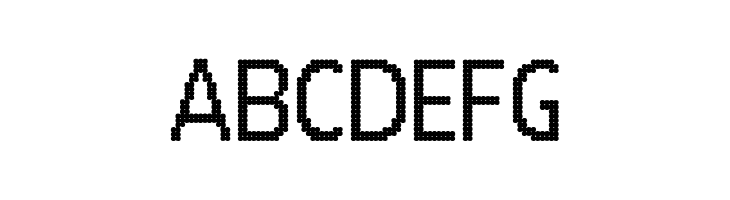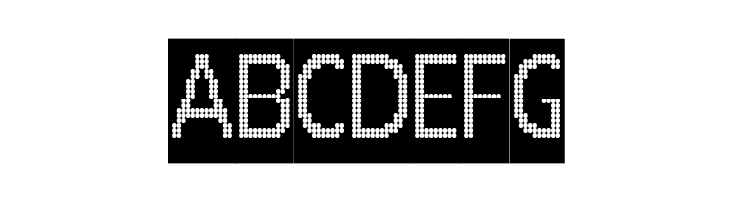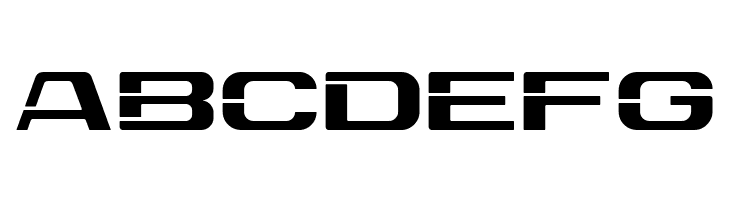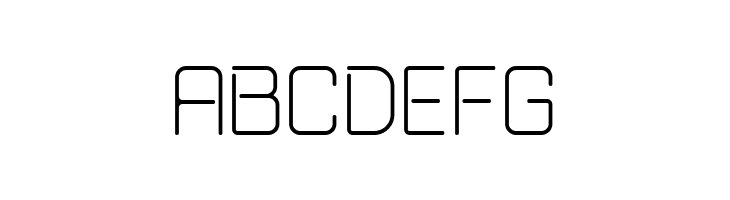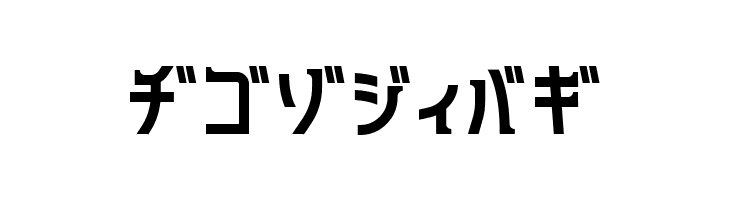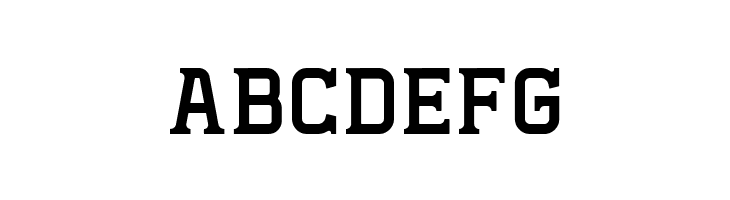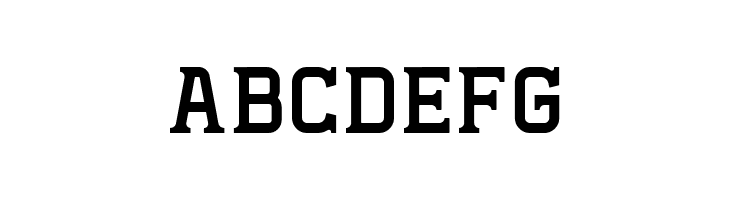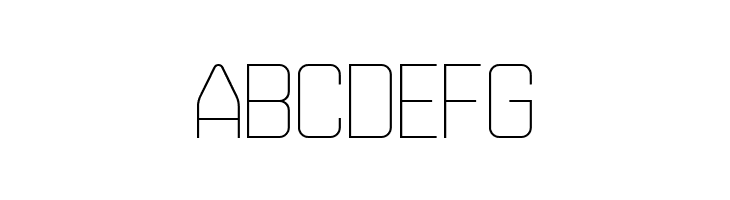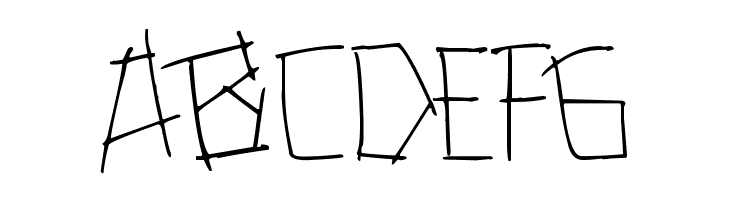
• 235MKSD UltraLightAl
A modern, ultra-light geometric font with a sleek and minimalistic design.
• 239SchabloneAl
A bold, futuristic font with geometric shapes and strong presence.
• 24 boughs Regular
A hand-drawn, twig-like font with an organic, rustic style.
• 24 LED
• 24 LED Bright
• 24 LED Modul
• 240mksdAlA
A bold slab serif font with a strong, authoritative appearance.
• 240mksdAlB
A bold slab serif font with strong, block-like serifs and a robust design.
• 240mksdKt
Bold, geometric sans-serif Japanese font with strong, clean lines.
• 243Ground AL
A modern, geometric font with clean lines and a minimalist style.